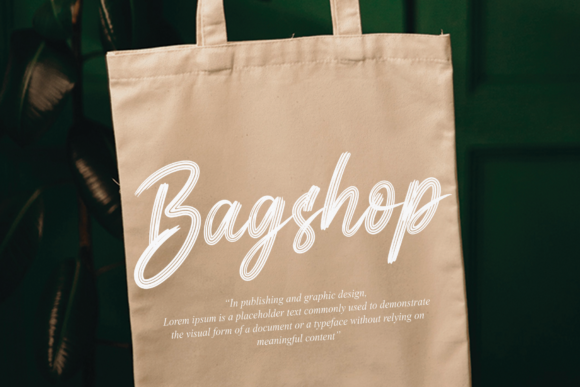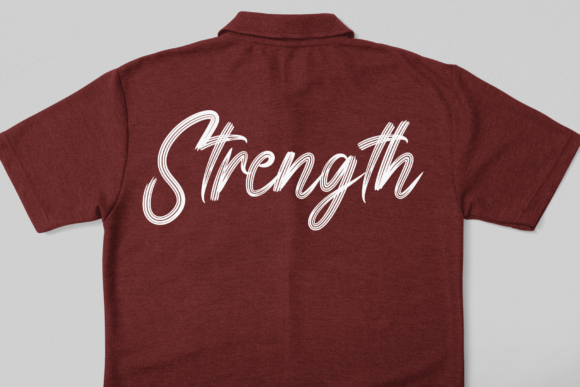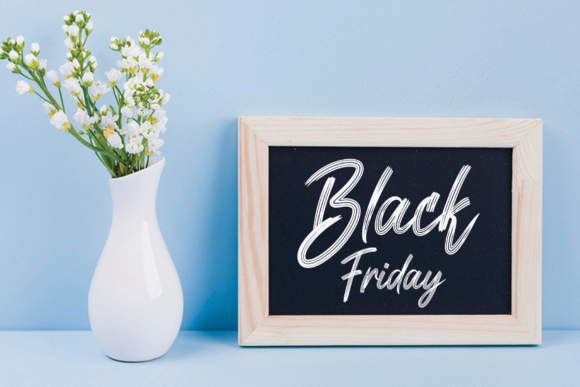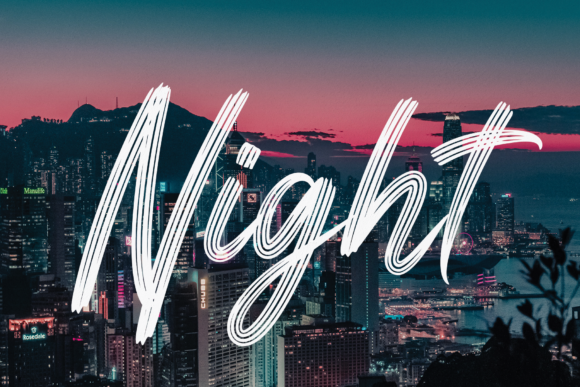
Introducing Bold Font: The Perfect Choice for Eye-Catching Designs
Are you a designer or crafter looking for a font that can add a touch of elegance and sophistication to your work? Look no further than Bold Font, a lovely and brushed handwritten font that is sure to make your designs come alive. In this article, we’ll take a closer look at the features and benefits of Bold Font, and explore how it can be used to create stunning logos, branding, and quotes.
What is Bold Font?
Bold Font is a unique and beautiful handwritten font that is perfect for creating eye-catching designs. Every letter has a distinctive and elegant touch, which sets it apart from other fonts. The font is designed to look like it was written with a brush, giving it a organic and natural feel that is perfect for a wide range of design applications.
Key Features of Bold Font
- Unique and Beautiful Touch: Every letter in Bold Font has a unique and beautiful touch that sets it apart from other fonts. The font is designed to be elegant and sophisticated, making it perfect for high-end designs.
- Brushed Handwritten Style: The font has a brushed handwritten style that gives it a organic and natural feel. This style is perfect for creating designs that look like they were created by hand.
Benefits of Using Bold Font
There are many benefits to using Bold Font in your designs. Here are just a few:
- Stand Out from the Crowd: Bold Font is a unique and eye-catching font that is sure to make your designs stand out from the crowd. Whether you’re creating a logo, branding materials, or quotes, Bold Font is the perfect choice.
- Elegant and Sophisticated: The font has an elegant and sophisticated feel that is perfect for high-end designs. Whether you’re working with luxury brands or creating designs for special occasions, Bold Font is the perfect choice.
- Versatile: Bold Font is a versatile font that can be used in a wide range of design applications. Whether you’re creating a logo, branding materials, or quotes, Bold Font is the perfect choice.
Design Ideas Using Bold Font
Bold Font is a versatile font that can be used in a wide range of design applications. Here are a few ideas to get you started:
- Logos: Bold Font is perfect for creating eye-catching logos that stand out from the crowd.
- Branding Materials: The font is also great for creating branding materials, such as business cards and letterheads.
- Quotes: Bold Font is perfect for creating inspirational quotes that are sure to motivate and inspire.
In conclusion, Bold Font is a lovely and brushed handwritten font that is perfect for creating eye-catching designs. With its unique and beautiful touch, elegant and sophisticated feel, and versatility, Bold Font is the perfect choice for designers and crafters. Whether you’re creating logos, branding materials, or quotes, Bold Font is sure to make your designs come alive!